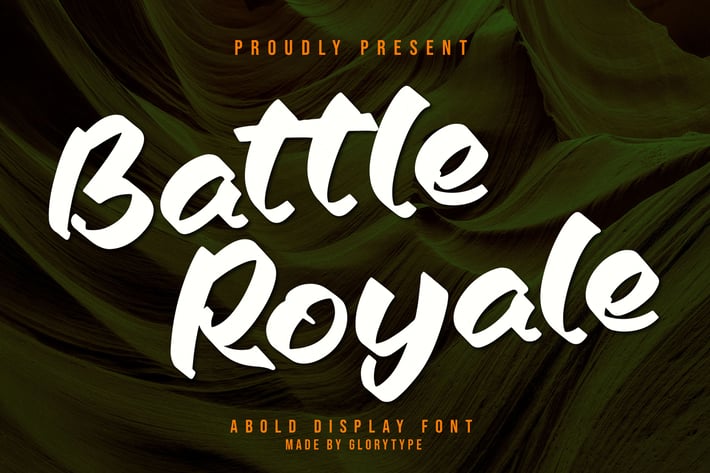
Battle Royale Bold Display Font
Battle Royale is a bold and fearless display font designed to make a powerful statement. Its energetic brush strokes and rugged edges give it a sense of movement and strength, perfect for designs that demand attention. This font captures a gritty, modern aesthetic ideal for sports, gaming, and urban branding.
Bold brush-style display font
Dynamic stroke texture with handcrafted details
Esports and gaming logos
Music album covers or event posters
Streetwear and urban branding
Motivational quotes and bold headlines
* YouTube thumbnails or sports promotions
Bring out the fighter spirit — Battle Royale makes your words hit harder and stand taller.